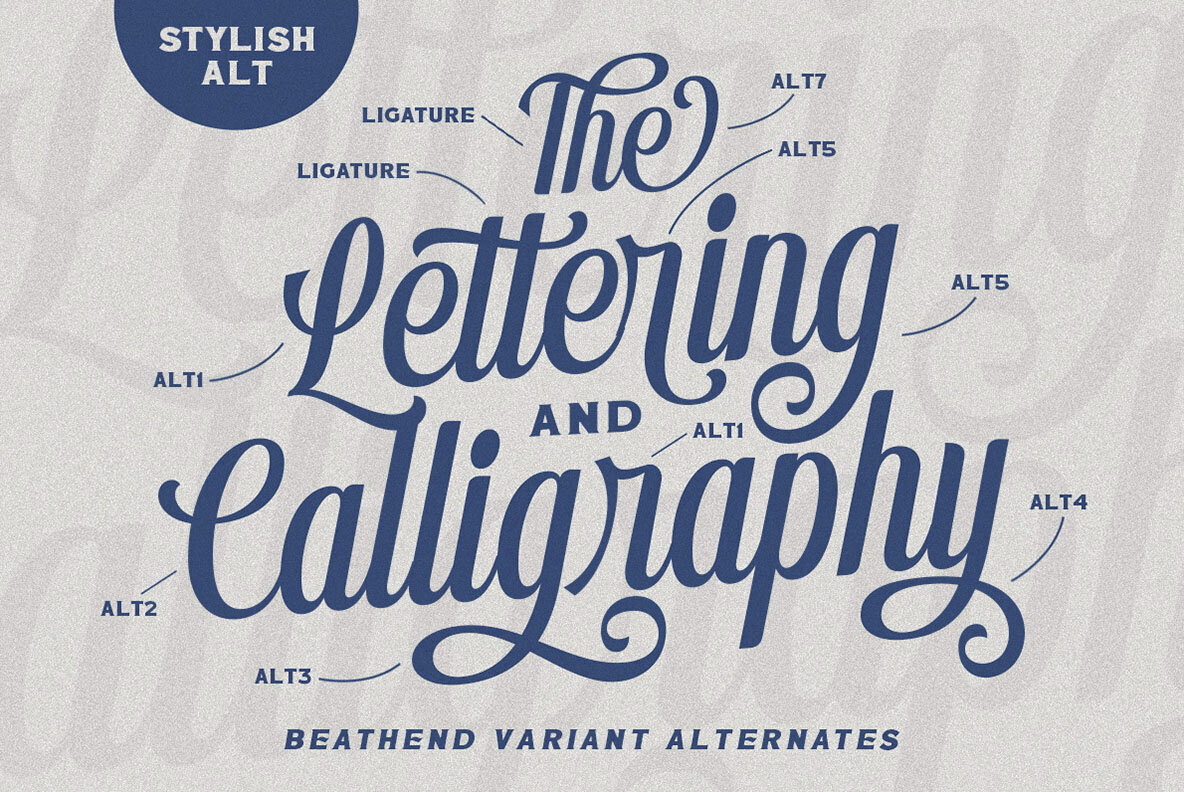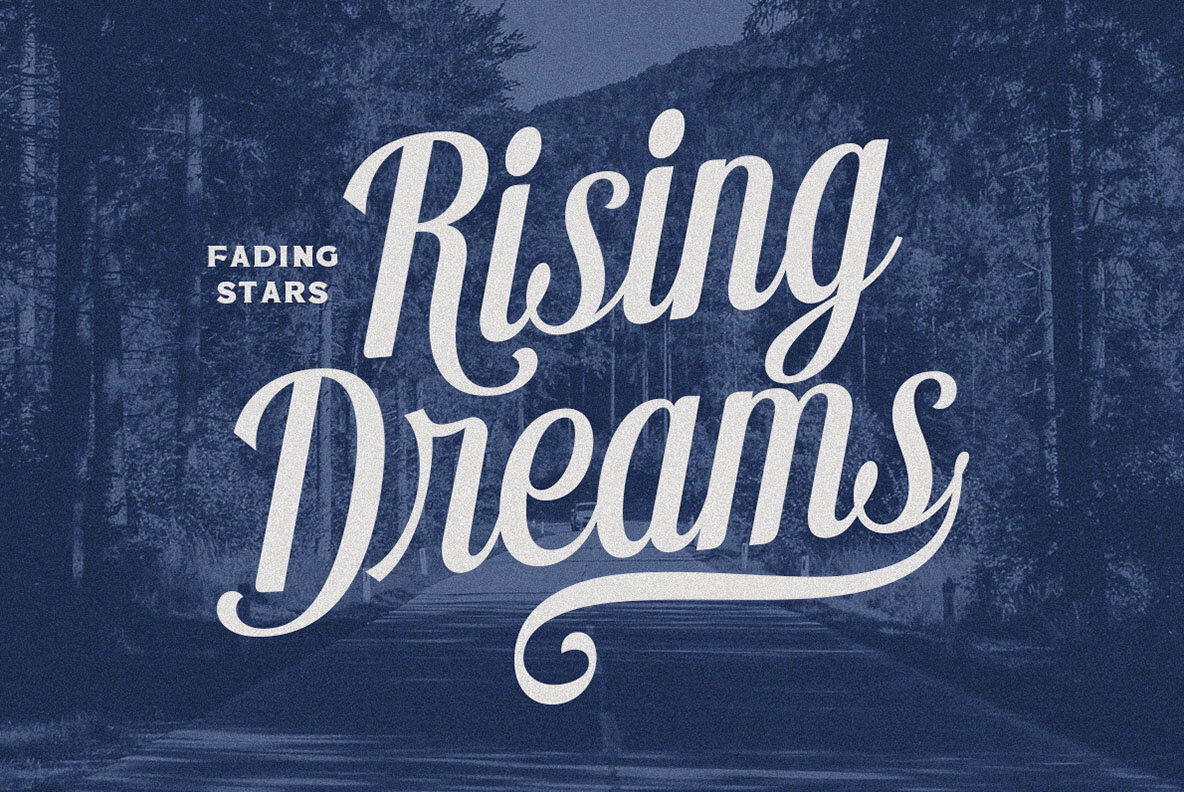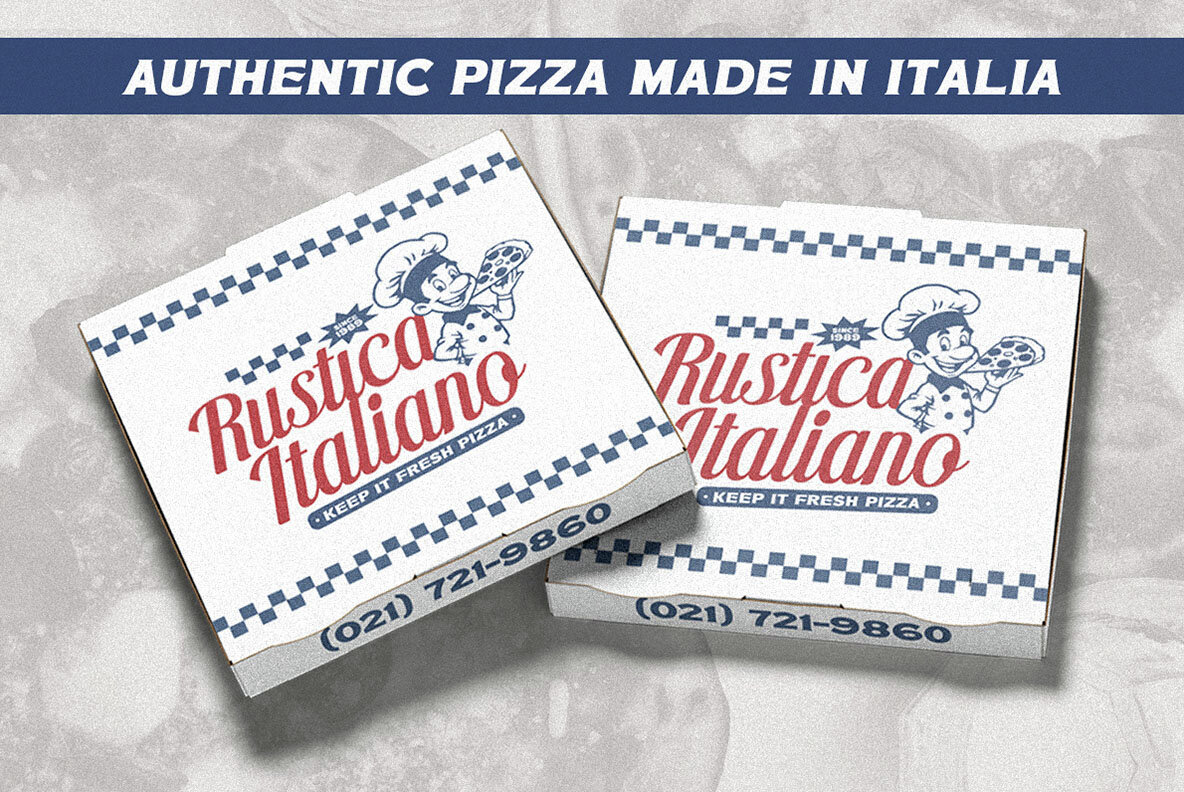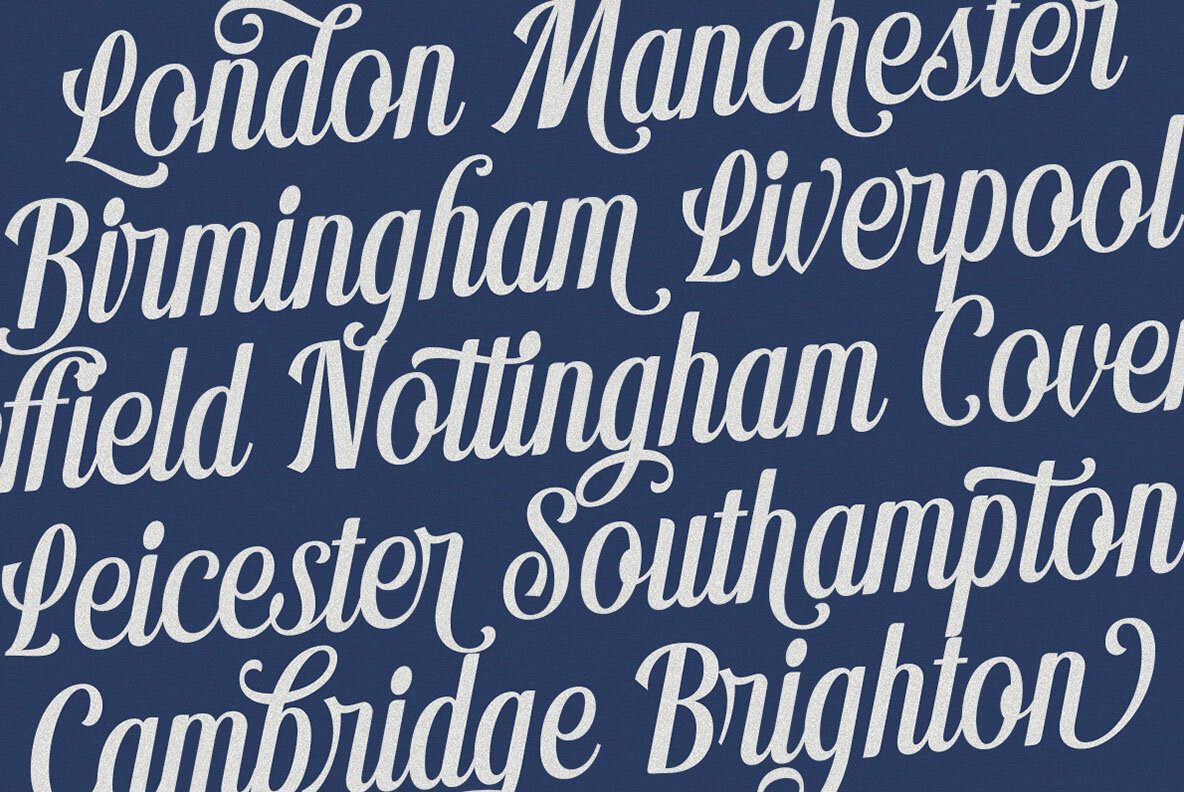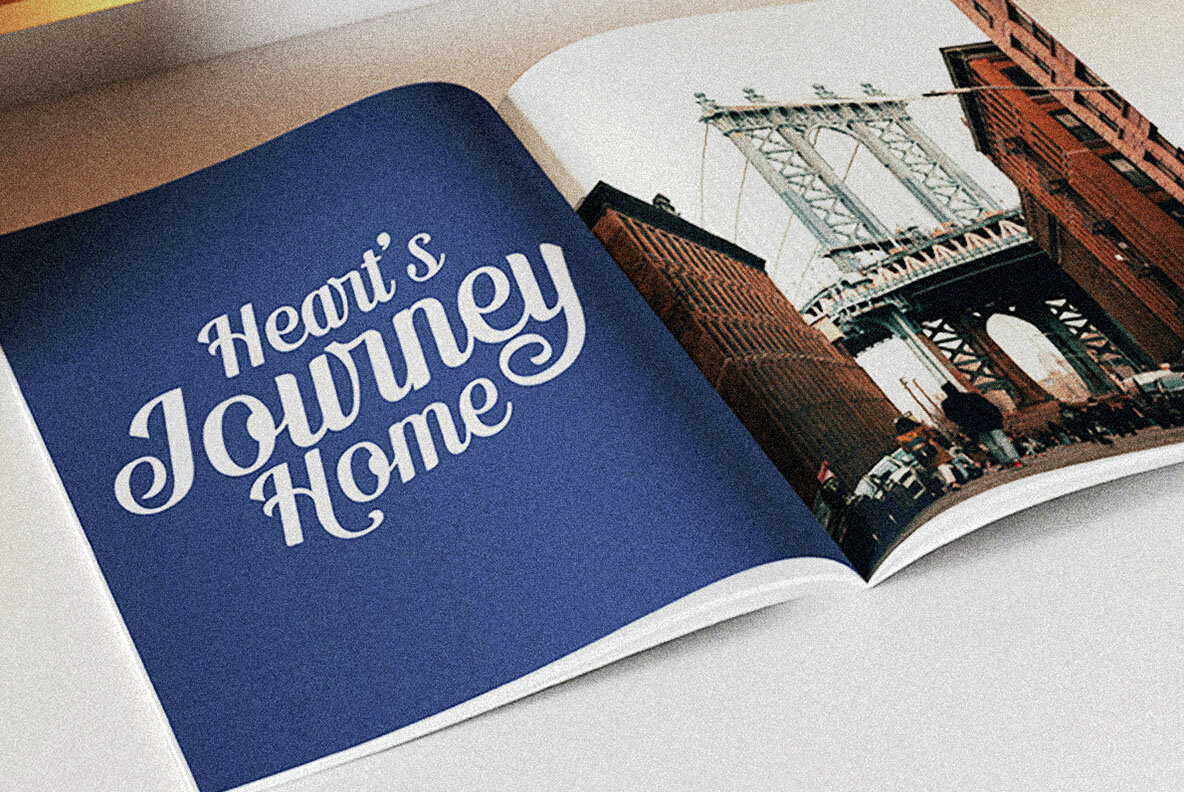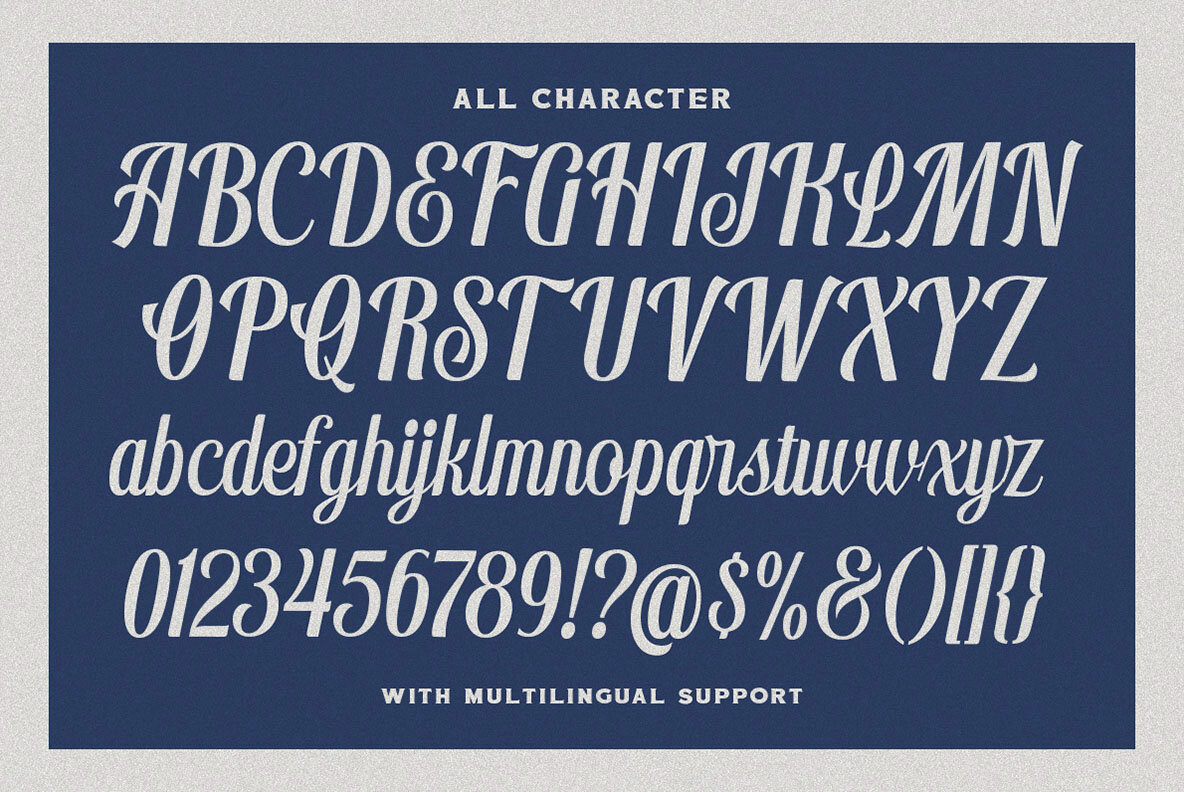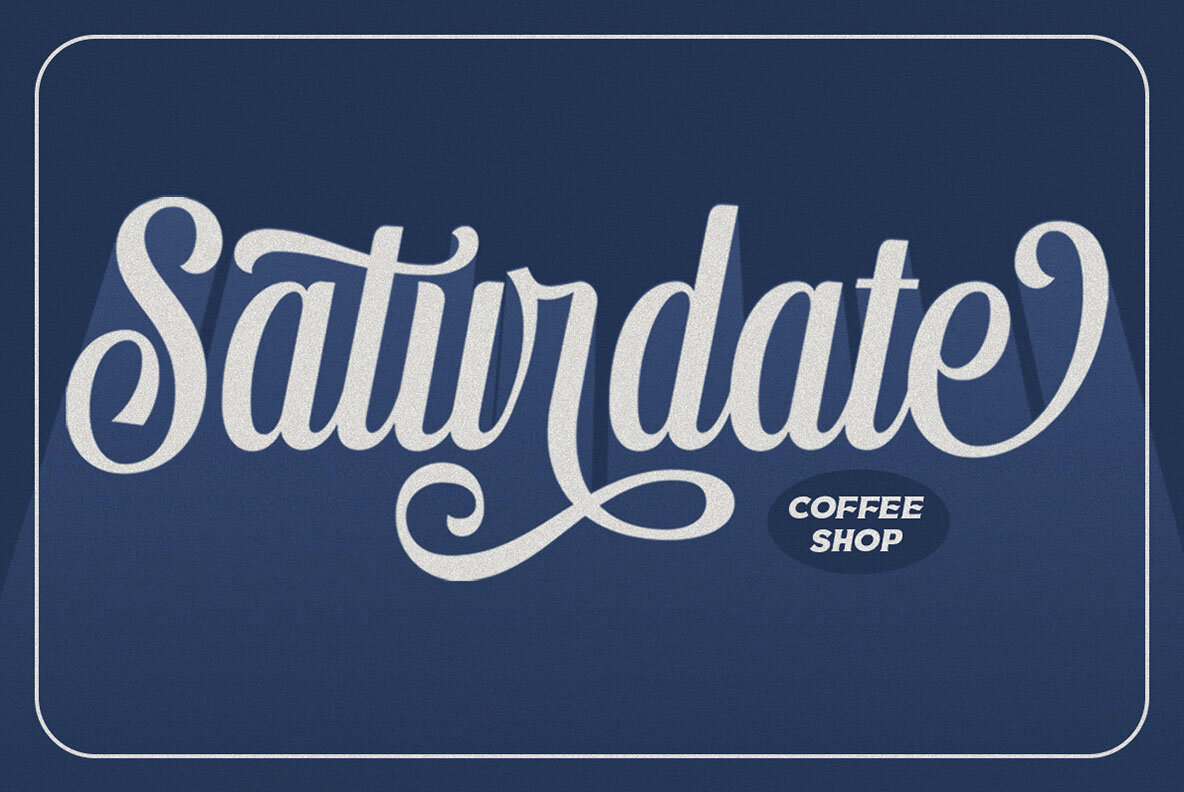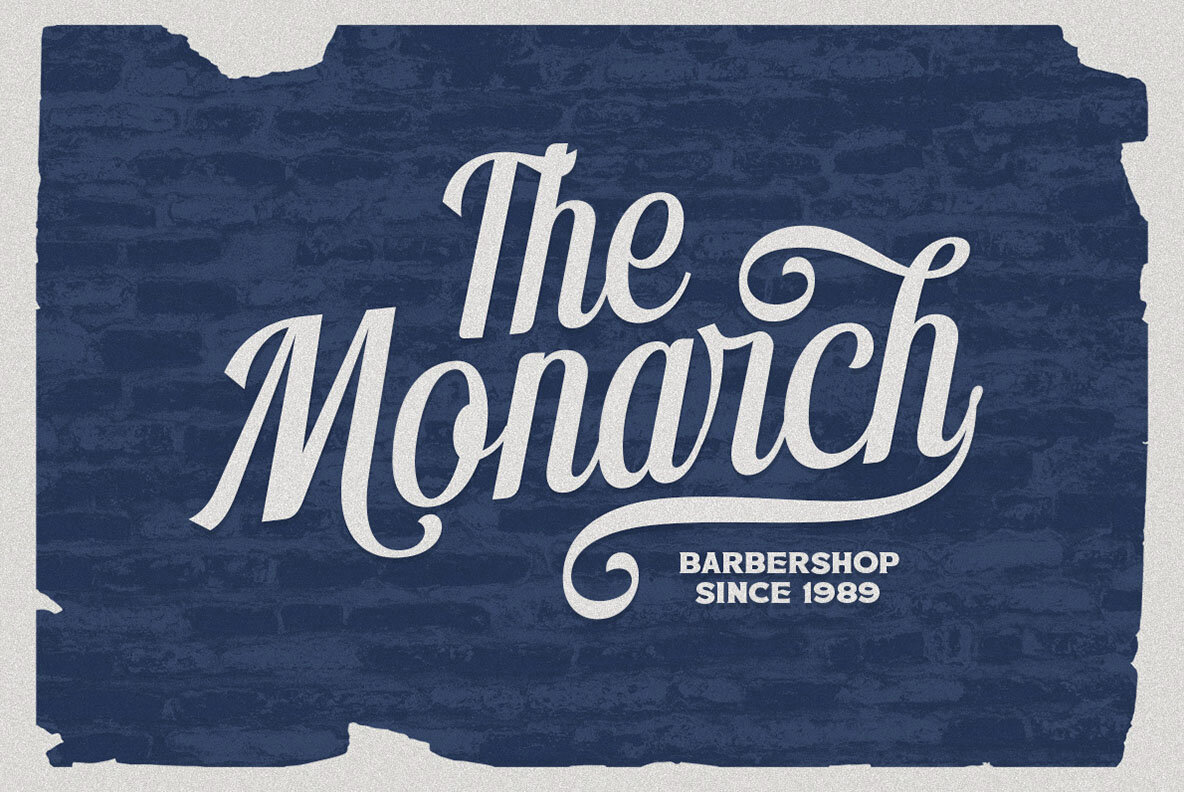
Beathend Font
Beathend Medium
Beathend is a sophisticated display script font that embodies elegance and vintage charm. Characterized by its smooth curves and bold strokes, this font is perfect for applications in branding, logos, packaging, and promotional materials. Its distinctive style ensures a striking visual appeal across various design projects.
This font offers versatility with the inclusion of alternates and ligatures, enabling creative customization. Beathend features uppercase and lowercase letters, numbers, and punctuation, and offers multilingual support. It is PUA encoded, allowing seamless integration into projects. To fully experience the font's potential, we recommend utilizing software that supports OpenType features and Glyphs panels such as Adobe products and Corel Draw, enabling access to all available Glyph variations.